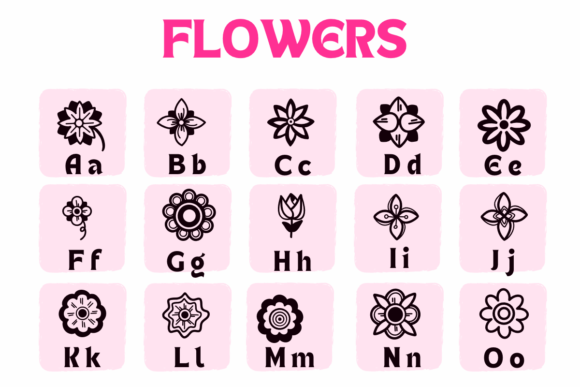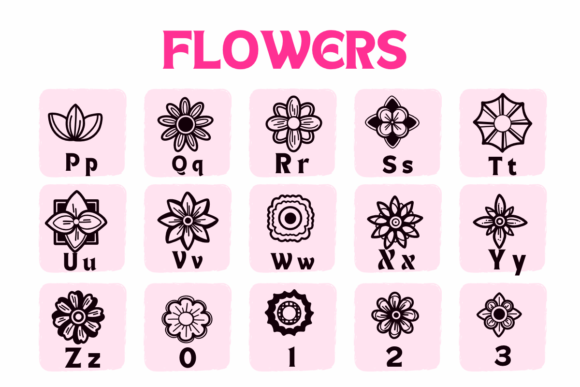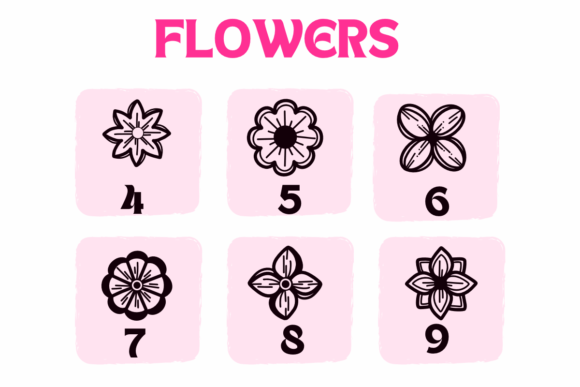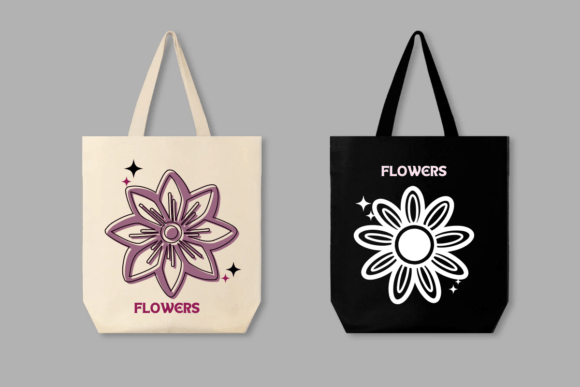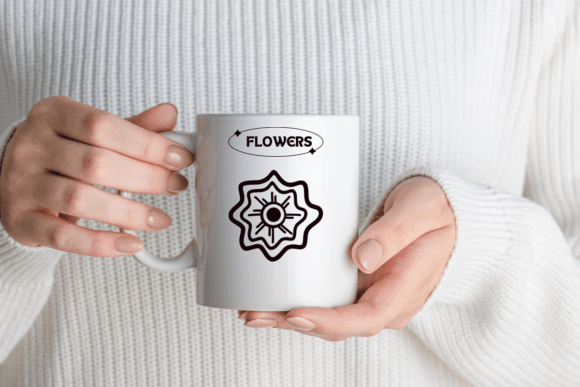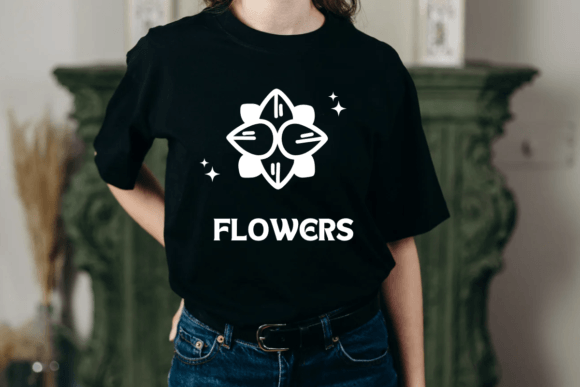
The Blooming Charm of Flowers Font: A Designer’s Delight
I’ll never forget the time I was working on a wedding invitation project, and my client asked for a font that was “whimsical, yet elegant.” I scoured the internet, tried countless fonts, but nothing seemed quite right. That was until I stumbled upon Flowers Font. It was like a breath of fresh air – a cute dingbat font with a lovely theme that perfectly captured the essence of my client’s vision.
What I Love About Flowers Font ✨
- Adorable floral designs that add a touch of whimsy to any project ✅
- Perfect for creative projects like wedding invitations, DIY crafts, and decorations 🎉
- Easy to use and pairs well with a variety of fonts, making it a versatile addition to any designer’s toolkit 👍
- Unique and eye-catching, perfect for making a statement in logos, branding, and more 💡
While Flowers Font is a delightful addition to any design project, it’s not without its limitations. For instance:
- Some characters may not work well in smaller font sizes ⚠️
- Limited character set compared to other fonts, which may limit its use in certain projects 🤔
The Story Behind Flowers Font: A Designer Inspiration 🌺
Flowers Font was created by a talented designer who wanted to capture the essence of nature and bring it to the digital world. Inspired by the beauty of flowers and the art of traditional lettering, this font is a love letter to all things whimsical and lovely. Whether you’re a designer, crafter, or creative hobbyist, Flowers Font is sure to delight and inspire.
| What type of projects is Flowers Font best suited for? | Flowers Font is perfect for creative projects like wedding invitations, DIY crafts, decorations, logos, and more. |
| Is Flowers Font available in different languages? | Flowers Font may not support all languages, but it does include a range of characters and glyphs to help you create beautiful designs. |
| Can I use Flowers Font in digital and print projects? | Absolutely! Flowers Font is versatile and can be used in both digital and print projects, from social media graphics to business cards and more. |